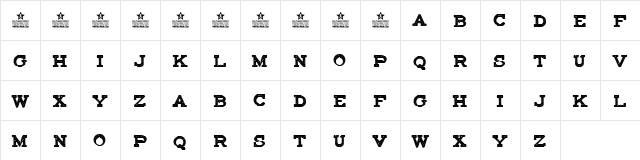
maccrap asphalt personal use Regular
| Foundry | Billyargel fonts |
| Designer | Billy Argel |
Design Context for maccrap asphalt personal use Typeface
maccrap asphalt personal use is a composed and adaptable typeface that performs quietly and consistently across a wide range of design contexts.